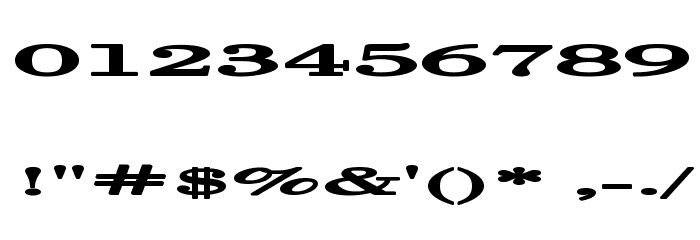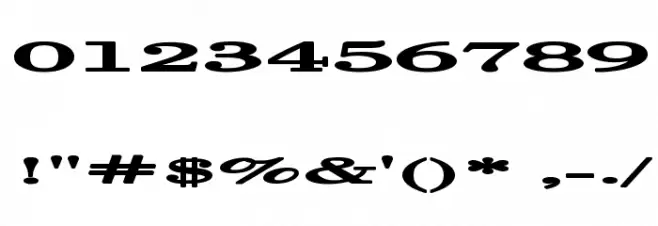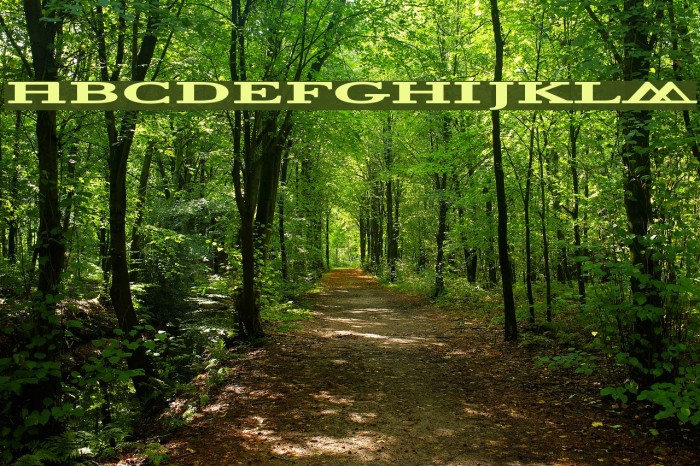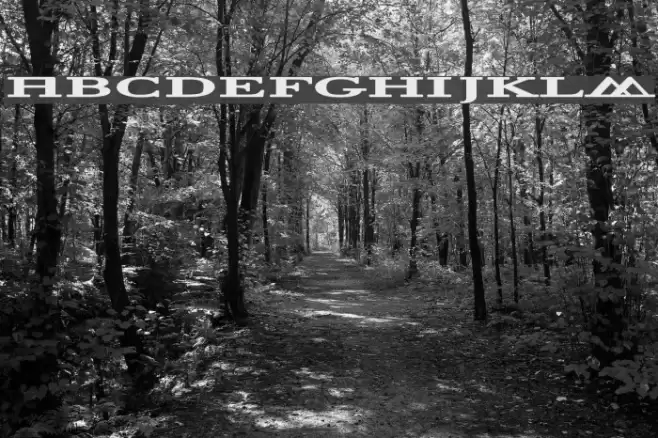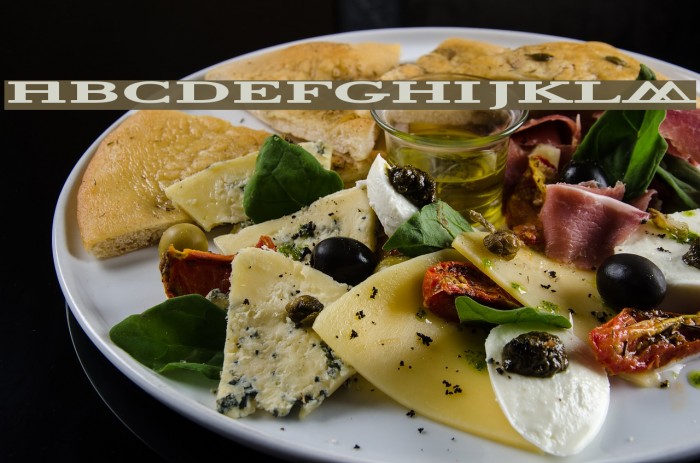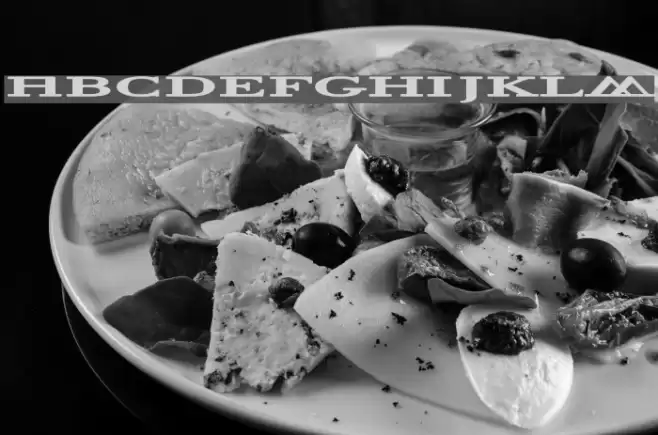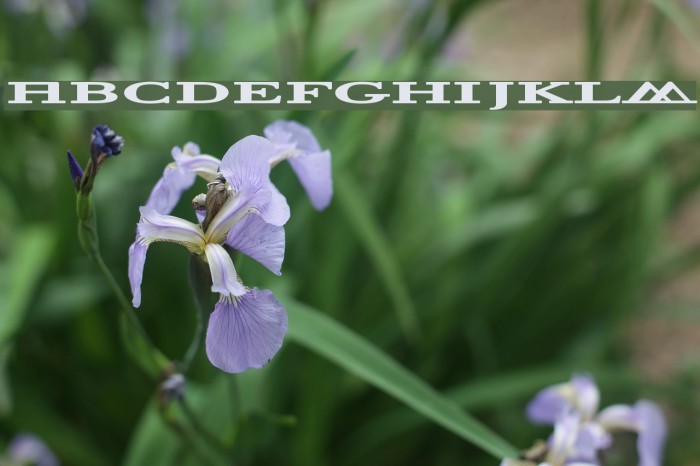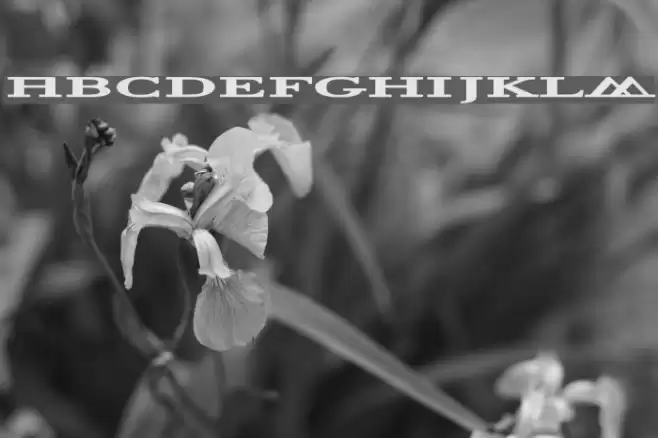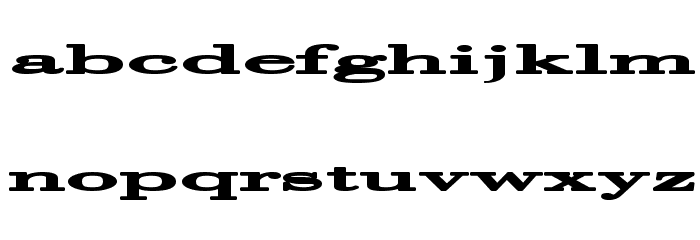
Halcyonia Superwide Font
Halcyonia Superwide Description
This font features a bold and expansive design, characterized by its wide letterforms and strong presence. The uppercase letters are particularly striking, with a commanding width that makes them stand out. The lowercase letters maintain a consistent style, offering a harmonious balance with the uppercase. The numerals are clear and robust, ensuring readability. Special characters are designed with the same boldness, making them suitable for impactful statements. Overall, this font exudes a modern and confident style, perfect for making a bold impression.
| Proposed Projects | Ideal for headlines, posters, branding, and any project requiring a bold statement. |